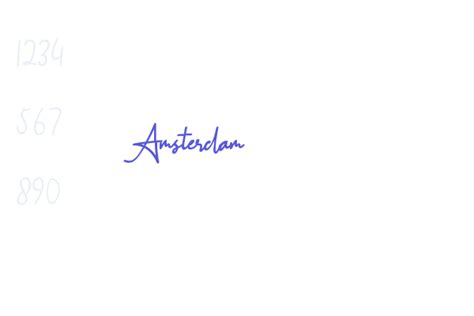
Hey guys! Today, we’re diving into the awesome world of typography and talking about a font that’s been catching a lot of eyes: Amsterdam 4 OTF . If you’re looking for a stylish, modern font that can add a touch of elegance and flair to your designs, you’ve come to the right place. We’re going to break down why this font is so popular, where you can snag a free download, and how you can best utilize it to make your projects shine. So, buckle up, graphic designers, web developers, and all you creative souls out there, because we’re about to explore the ins and outs of the Amsterdam 4 OTF font.
Why Amsterdam 4 OTF is a Designer’s Dream
Let’s get real for a second, guys. Choosing the right font can make or break a design. It’s like picking the perfect outfit for an occasion; it needs to fit the vibe, be readable, and, most importantly, look good . The Amsterdam 4 OTF font nails this trifecta. It’s a contemporary typeface that blends a sense of sophistication with a friendly, approachable feel. What makes it stand out? Well, it’s often praised for its clean lines, balanced proportions, and versatility. Whether you’re crafting a professional brand identity, designing a catchy social media graphic, or laying out an elegant invitation, Amsterdam 4 OTF has the chops to deliver. Its OpenType features (that’s what the ‘OTF’ stands for, by the way!) often include ligatures, alternates, and extended language support, giving you even more creative control. This means you can achieve a truly custom look without needing to be a seasoned typographer. The character set is usually quite robust, ensuring it works well across different languages, which is a huge plus in our globalized world. When you’re experimenting with Amsterdam 4 OTF, you’ll notice how it handles both large display text and smaller body copy with equal grace. This dual capability is super valuable because it means you don’t have to switch fonts halfway through a project if your needs change. It’s the kind of font that makes you feel confident in your design choices, knowing it’s both aesthetically pleasing and highly functional. The subtle curves and sharp edges are meticulously crafted, offering a unique personality without being overly quirky. It strikes that perfect balance between classic and modern, making it a timeless choice for a variety of applications. Think wedding invitations, high-end product packaging, restaurant menus, editorial layouts, and even website headers. Its legibility is top-notch, which is crucial for user experience on digital platforms. No one wants to squint to read your amazing content, right? Amsterdam 4 OTF ensures your message comes across clearly and stylishly. It’s the kind of font that doesn’t just sit there; it actively enhances your message and elevates your overall aesthetic. The designers behind it have clearly put a lot of thought into every glyph, ensuring a cohesive and visually appealing typeface that’s a joy to work with. So, if you’re on the hunt for a font that offers both style and substance, Amsterdam 4 OTF is definitely worth checking out. Its ability to adapt to different contexts and its refined aesthetic make it a true asset in any designer’s toolkit. It’s more than just letters; it’s a statement.
Tips for Using Amsterdam 4 OTF in Your Designs
Now that you’ve hopefully snagged your Amsterdam 4 OTF font free download , let’s talk about how to use this beauty effectively. Just having a great font isn’t enough; you need to know how to wield it like the design weapon it is! First off, consider the context . As we touched upon, Amsterdam 4 OTF is incredibly versatile. For headlines and titles , its strong presence can make a bold statement. Try using it in larger sizes, perhaps with some letter-spacing adjustments, to create a sophisticated and eye-catching effect. Its elegant curves and clean structure will draw attention without feeling overwhelming. Think impactful quotes on social media graphics or the main title of a blog post. When it comes to body text , Amsterdam 4 OTF can also work, especially if the font size is sufficient for readability. However, for extremely long passages of text, you might want to pair it with a simpler, more neutral sans-serif or serif font to ensure maximum legibility. A good rule of thumb is to use display fonts like Amsterdam 4 OTF for shorter, impactful text elements and pair them with highly readable text fonts for longer paragraphs. This creates a beautiful typographic hierarchy that guides the reader’s eye. Don’t be afraid to play with OpenType features . If your downloaded version includes alternates or ligatures, experiment with them! Swapping out a standard letter for an elegant alternate can add a unique touch, and ligatures (where two or more letters are joined together) can create a smoother, more professional flow. Most design software will automatically suggest or apply ligatures, but exploring the glyph panel gives you full control. Pairing fonts is another crucial skill. Amsterdam 4 OTF often pairs well with minimalist sans-serif fonts (think Montserrat, Open Sans, Lato) for a modern, clean look, or with a classic serif font (like Georgia or Times New Roman, used judiciously) for a more traditional feel. The key is contrast – you want your chosen fonts to complement each other without clashing. Try a bolder weight of Amsterdam 4 OTF for a heading and a lighter weight, simpler font for the subheadings and body. Color and hierarchy are also your best friends. Use color to make your Amsterdam 4 OTF text pop, especially if you’re using it for calls to action or key information. Ensure there’s enough contrast between the text color and the background. Also, use size, weight, and placement to establish a clear visual hierarchy. The most important information should be the most prominent, and Amsterdam 4 OTF is excellent at grabbing attention when used strategically. Finally, don’t overdo it . While Amsterdam 4 OTF is gorgeous, using too many different styles or sizes of the same font within one design can look cluttered. Stick to one or two weights and a couple of sizes for a cohesive and polished outcome. Apply these tips, and you’ll be using Amsterdam 4 OTF like a pro in no time, guys! It’s all about experimenting and finding what looks best for your specific project.
Conclusion: Elevate Your Designs with Amsterdam 4 OTF
So there you have it, folks! The Amsterdam 4 OTF font is a stellar choice for anyone looking to add a touch of modern sophistication and undeniable style to their projects. We’ve covered why it’s a designer favorite, the ease and importance of finding a free download from reliable sources, and some killer tips on how to integrate it seamlessly into your designs. Whether you’re working on branding, web design, print materials, or just personal creative endeavors, this font offers the versatility and aesthetic appeal to make your work stand out. Remember the importance of checking licensing – free doesn’t always mean free for commercial use, so always be sure you’re compliant. By using Amsterdam 4 OTF thoughtfully, playing with its OpenType features, and pairing it wisely with other fonts, you can create truly stunning visual communications. Happy designing, guys! Go forth and create something amazing with this fantastic typeface.